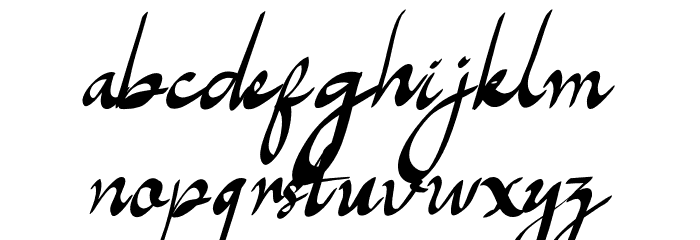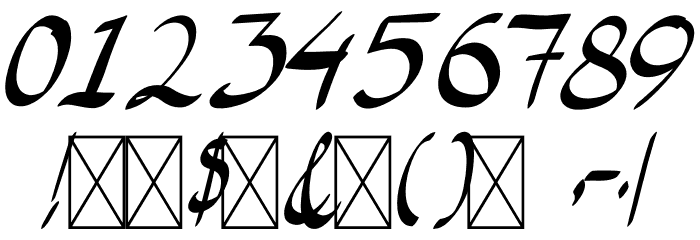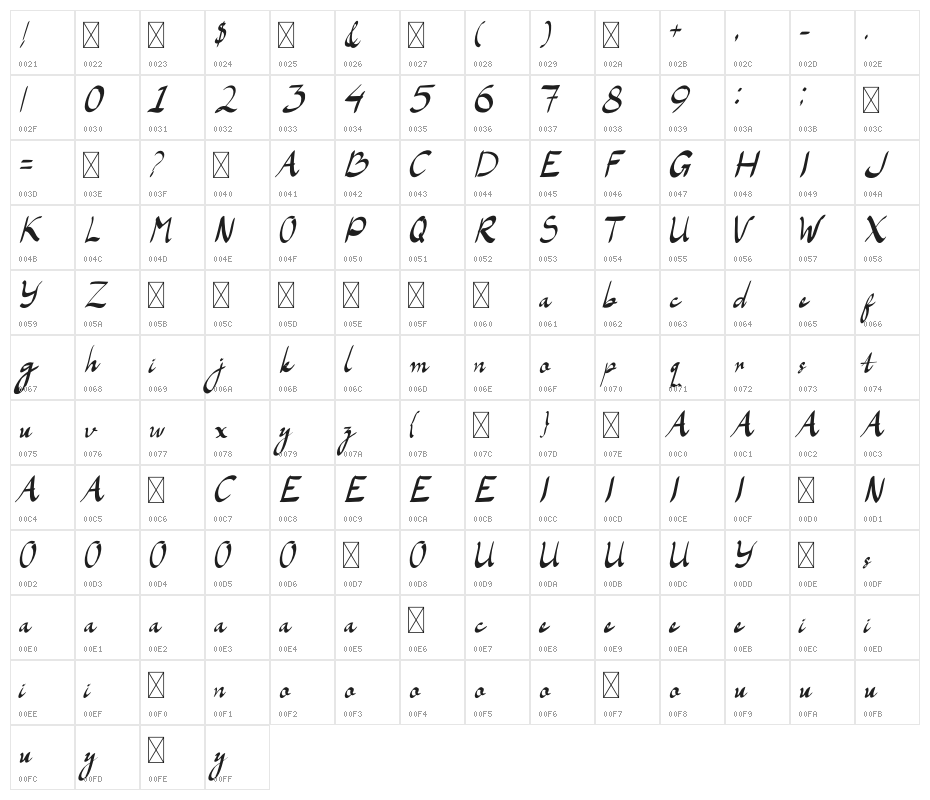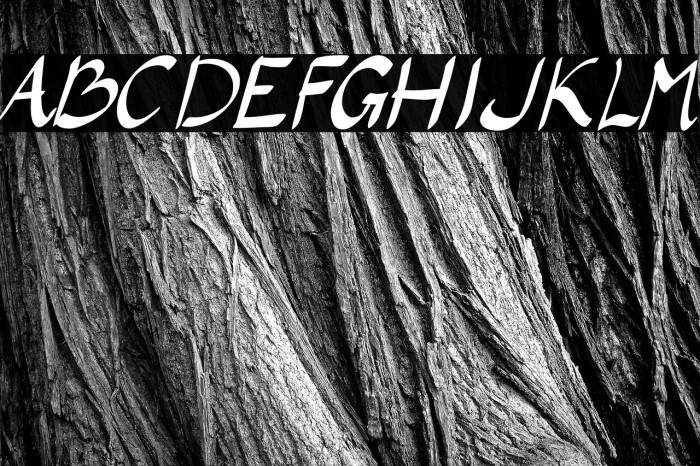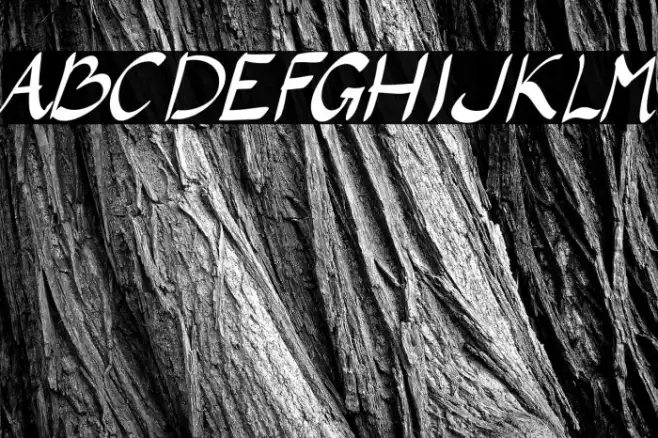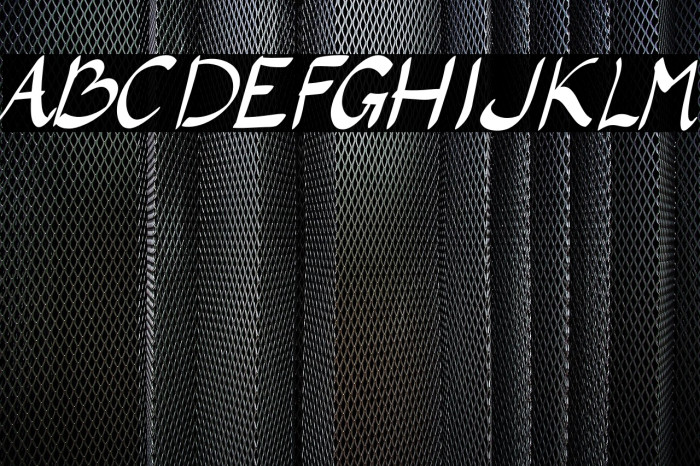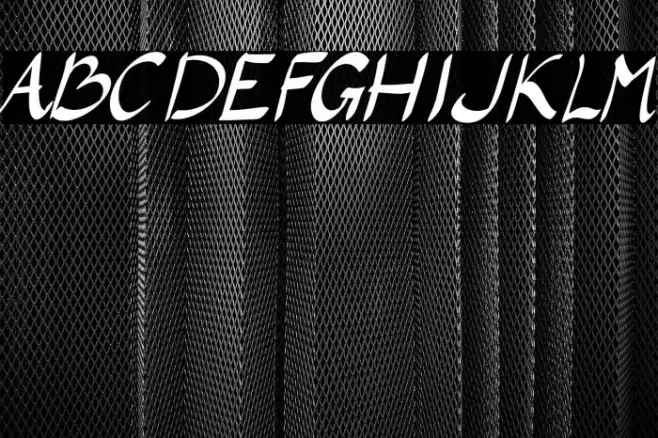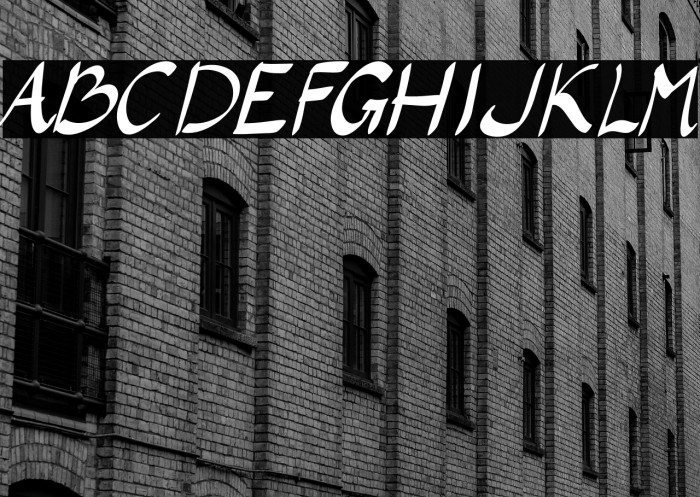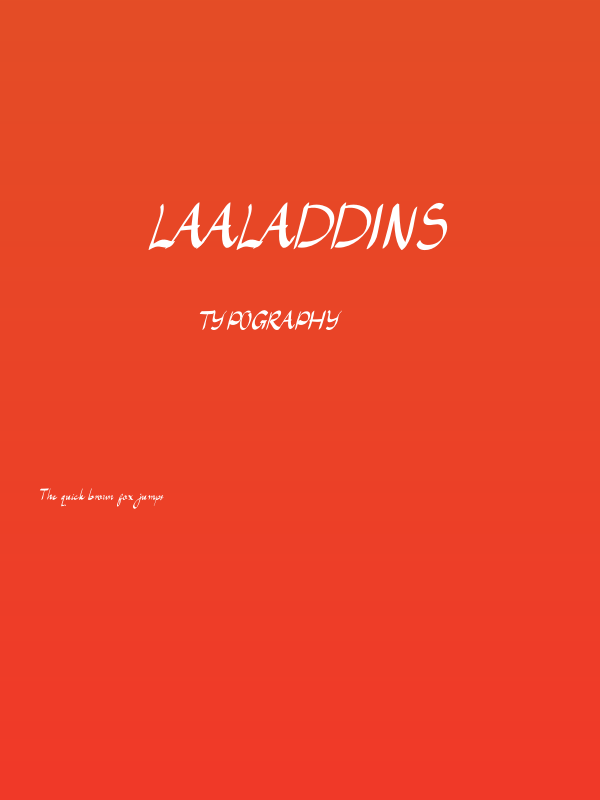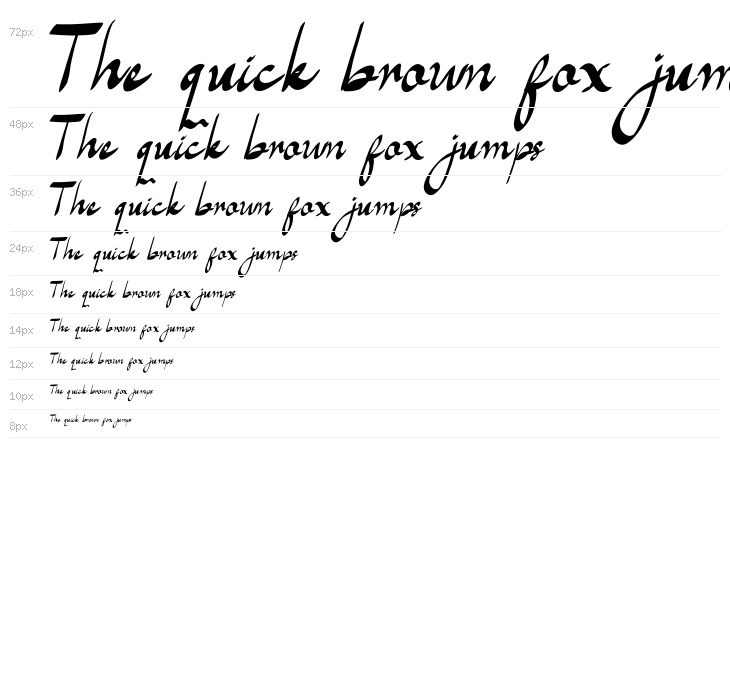
LaAladdins Font
This font features a dynamic and flowing script style, characterized by its elegant and fluid strokes. The uppercase letters are bold and slightly slanted, giving a sense of movement and grace. The lowercase letters maintain a consistent flow, with some characters extending below the baseline, adding to the font's expressive nature. The numerals are distinct and maintain the same fluidity, ensuring readability while retaining the overall aesthetic. The font's design is reminiscent of calligraphy, with a modern twist that makes it suitable for various creative applications.
A dynamic and flowing script font with elegant, fluid strokes.
- Font: LaAladdins
- Proposed Projects: Ideal for wedding invitations, branding, logo design, and artistic projects requiring a touch of elegance.
- Category: Script
- Use Case: Logos, Invitations, Artistic projects